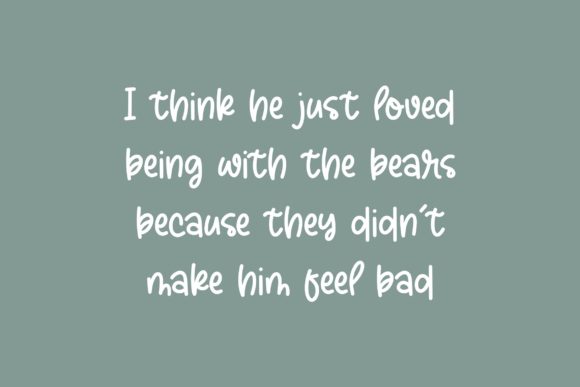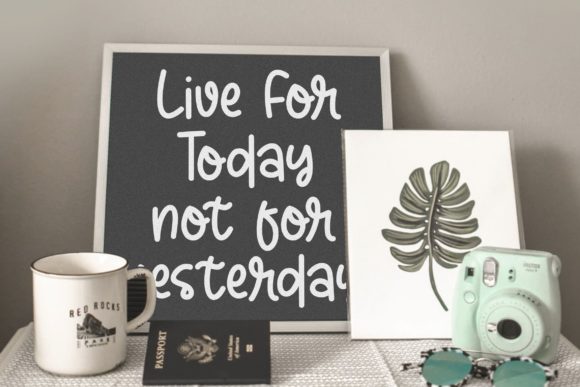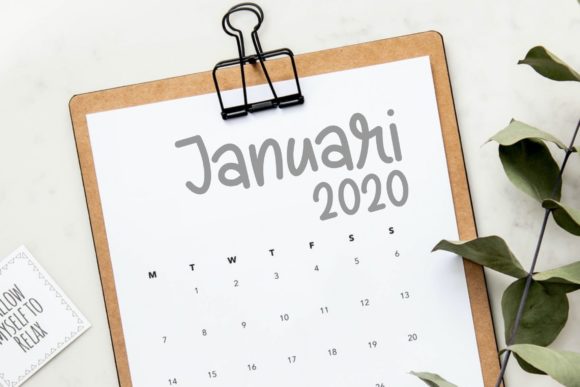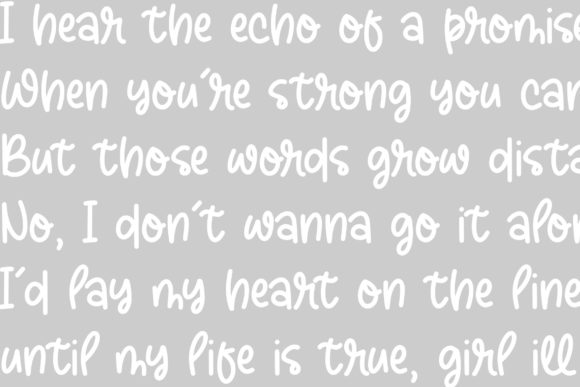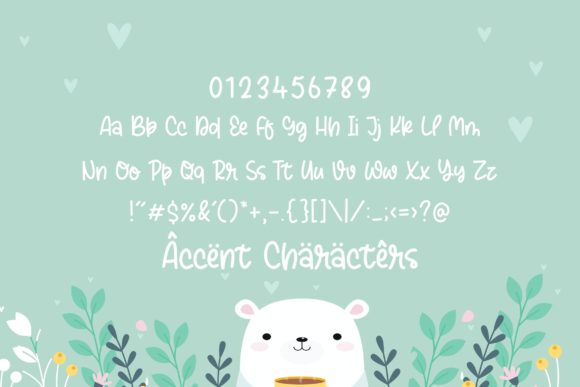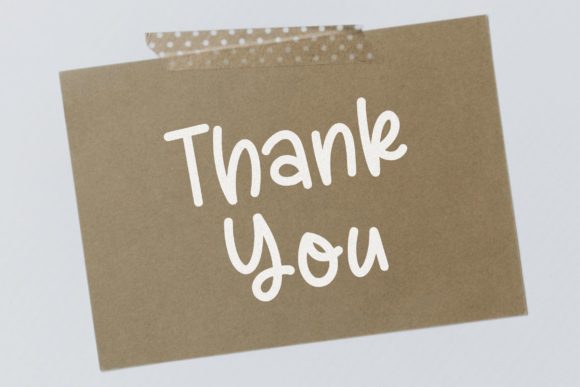
The Designer’s Delight: A Deep Dive into Daytime Font
I’ll never forget the time I was working on a project for a client who wanted a friendly, approachable vibe for their branding. I had spent hours scouring the internet for the perfect font, but nothing seemed quite right. That was until I stumbled upon Daytime Font. Its distinct, well-rounded letters immediately caught my eye, and I knew I had found the one. In this article, I’ll share my love for Daytime Font, its features, and how to make the most of it in your designs.
An Honest Review of Daytime Font
- ✨ Friendly and approachable feel
- ✅ Highly versatile and adaptable to various design projects
- 💕 Beautifully crafted, handwritten letters with a personal touch
- 🎉 Excellent for creating a warm and inviting atmosphere in designs
While Daytime Font is an excellent choice for many design projects, there are a few things to keep in mind:
- 🤔 Limited availability of certain OpenType features in some platforms
- ⚠️ May not be the best choice for very formal or corporate designs
The Story Behind Daytime Font
Daytime Font was designed with the intention of creating a friendly, approachable font that would bring warmth and personality to designs. The designer aimed to craft a font that would feel like a handwritten note, but with the clarity and legibility of a professionally designed typeface.
| Font Name | Daytime Font |
| Author | Balpirick |
| What makes Daytime Font unique? | Daytime Font’s distinct, well-rounded letters and friendly feel make it stand out from other fonts. |
| Is Daytime Font suitable for formal designs? | While Daytime Font is highly versatile, it may not be the best choice for very formal or corporate designs. It’s better suited for projects that require a friendly, approachable vibe. |